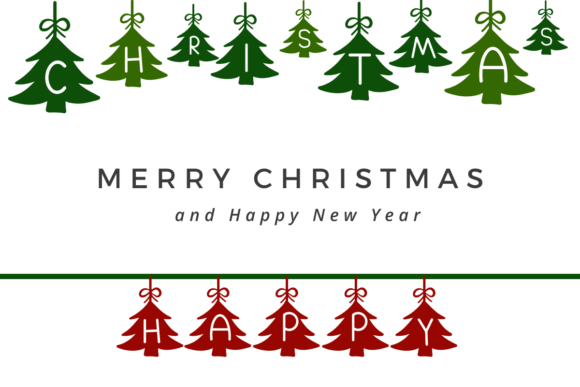
Decorated Christmas Tree Font
Experience the joy of typography magic with ‘Decorated Christmas Tree’, a captivating decorative font. Ideal for transforming your simple notes, diary entries or greeting cards into extraordinary pieces. It is versatile and extends beyond its name to accommodate your varied design requirements – be it an imposing banner, persuasive content, a quirky mug, elegant stationery, custom t-shirts or captivating social media posts! With ‘Decorated Christmas Tree’ font, every character becomes a storytelling element, immersing you in the world of creativity and design possibilities.